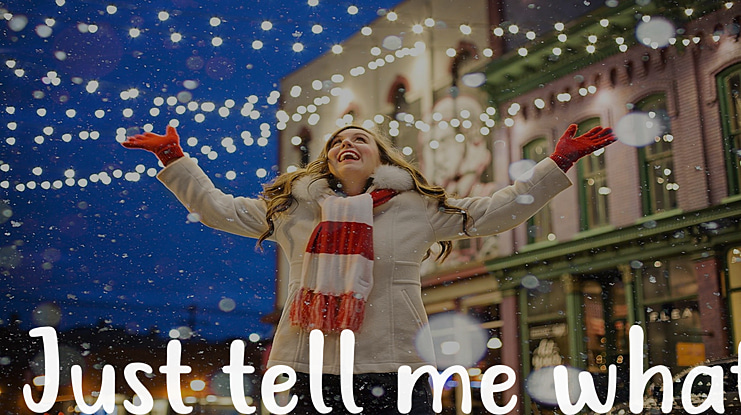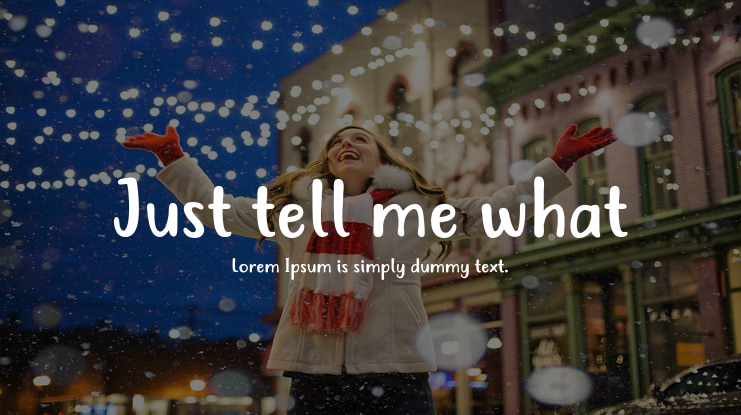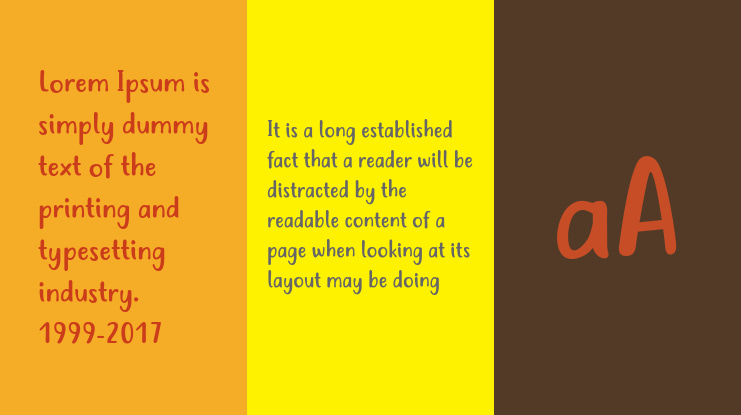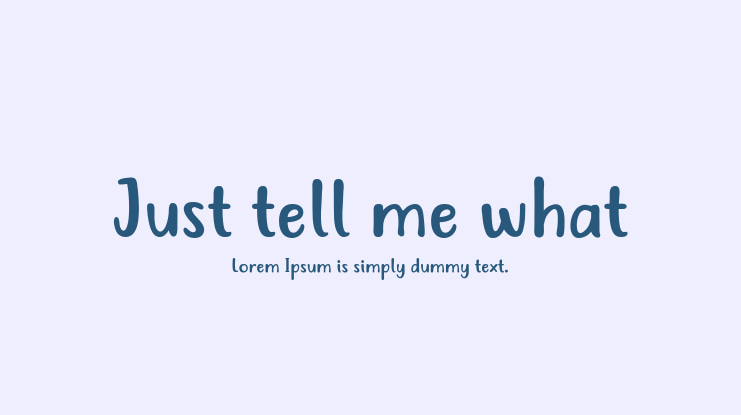
Just tell me what Font Family
Just tell me what © 7NTyes. 2017. All Rights ReservedJust tell me what is a flowing, rounded handwritten font. The font breathes a soft vibe which give the text a relaxed and happy feeling. It has two family: Regular and italicIt is free for personal use only. You may support me to create more free for personal use fonts by donating as much as you wish to.For Commercial use license, get it exclusively only on Creative Fabrica: www.creativefabrica.com/product/just-tell-me-what/ref/87/ (https://www.creativefabrica.com/product/just-tell-me-what/ref/87/)Thank you for downloading and using Just tell me what Font. :)